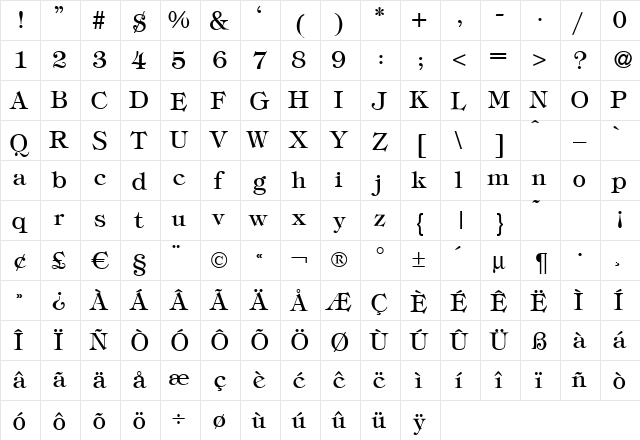
T731-Roman Regular
Design Context for T731-Roman Typeface
T731-Roman is a composed and adaptable typeface that performs quietly and consistently across a wide range of design contexts.